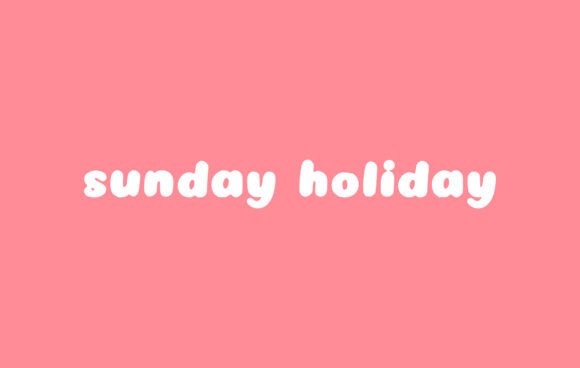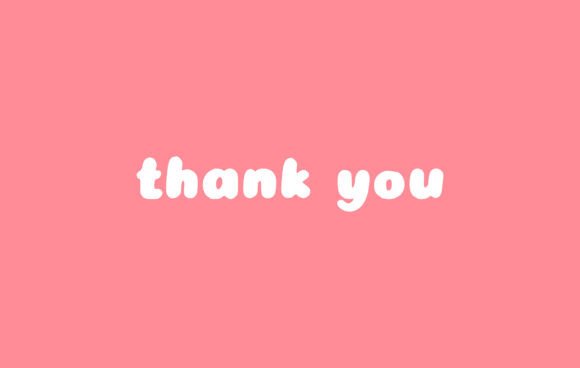
Metro Riot Font – Free Download
Introduction to Metro Riot Font
Metro Riot font is an authentic handwritten font with a romantic touch.
Key Features of Metro Riot Font
Why Choose Metro Riot Font?